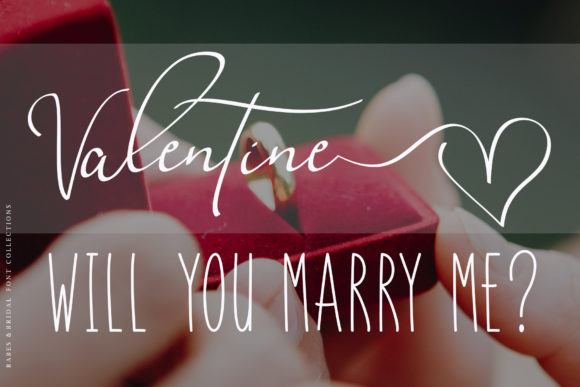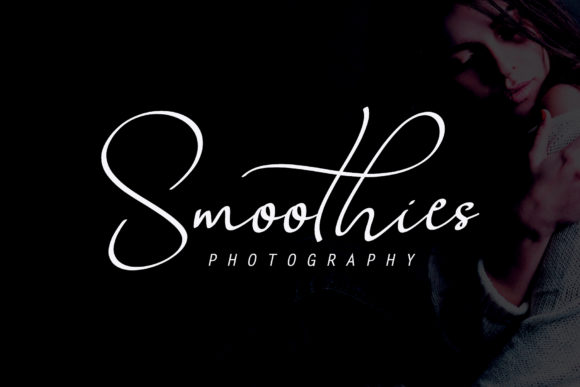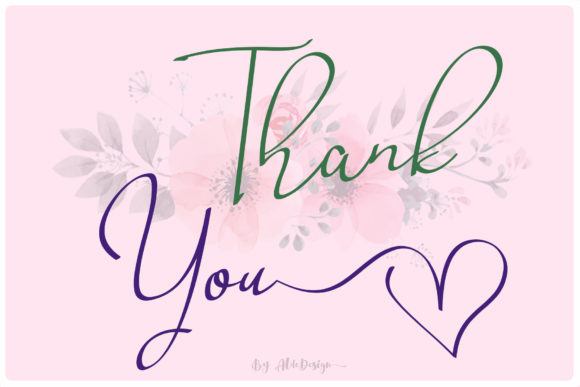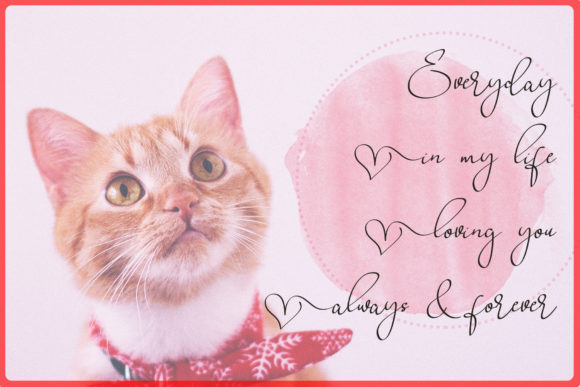
Babes & Bridal Font
About Babes & Bridal Font
The Babes & Bridal is a simple, yet classy typeface. It comes with elegant beginning and ending tails (swash& titling) and is very easy to use.
It’s perfect for watermark on photography, signature or signature logo designs, album covers, business cards, quotes, and many other design projects.